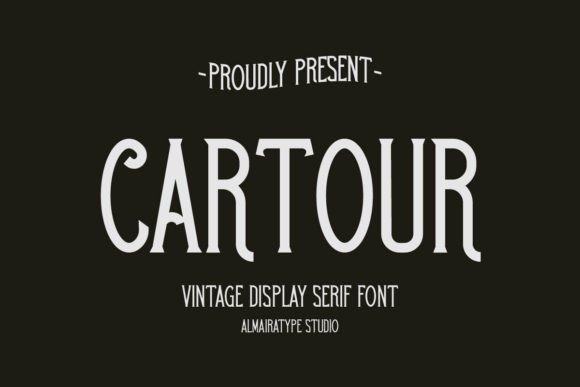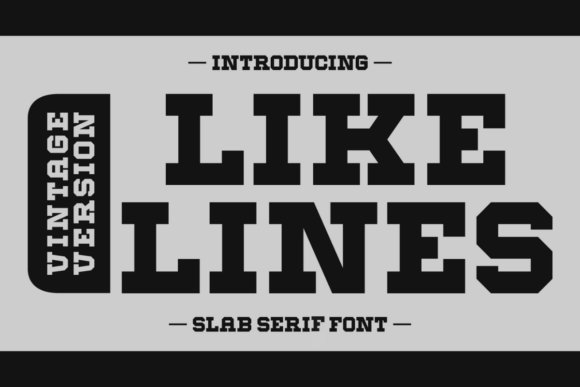
32 Timeless Vintage Serif Fonts That Add Warmth to Editorial Design in 2026
Vintage Serif Fonts bring back the character of hand-set type and aged printing without feeling dated. This collection of 32 faces spans book serifs, slab-influenced classics, and weathered display styles to suit editorial spreads, boutique labels, and heritage websites.
I outline where each style excels, pairing ideas, and quick tips for weight, kerning, and ornamented capitals so you can keep clarity while adding period charm. Short specimens and download pointers follow to help you test options on real layouts.
1. Woodsman Script
Woodsman Script
Woodsman Script channels the warmth of vintage serif lettering into a hand-drawn, rustic script with subtle distressing. Its slightly worn terminals and ink-bleed textures give letterforms an organic, tactile presence that reads well on labels and stamped logos. This personality makes it a natural for outdoor brands, farmhouse packaging, and any mark that needs a handcrafted, heritage feel.
Technically the font includes alternate characters, discretionary ligatures, and generous kerning that keep longer lines readable while preserving a rough-hewn aesthetic; pairing it with a clean sans or a restrained old-style serif balances visual weight. Use it at display sizes where its textured counters and decorative tails can sing; it also complements projects rooted in retro type, Vintage Serif Fonts, and classic woodtype motifs. For print and high-resolution digital mockups the distress holds up; for tiny UI labels consider using a slightly heavier weight or a smoothed variant.
My Recommendation: I reach for Woodsman Script when a project needs an honest, handmade voice-think craft beer labels, woodshop logos, or farmer’s-market packaging. Its distressed edges and alternates let me create marks that feel aged without looking sloppy, and the OpenType features give flexibility for display treatments. I would avoid tiny UI text but it’s excellent for large-format print and tactile branding.
2. Cartour Font
Cartour Font
Cartour is a poised serif with measured contrast and refined terminals that favor headlines and identity work. Its balanced proportions and clear axis lend authority to corporate marks and editorial headlines while maintaining an approachable character. The family includes small caps, multiple figure styles, and stylistic alternates that broaden typographic expression across posters and logotypes.
On the page Cartour reads with calm clarity, its stroke modulation offering enough personality to feel classic without becoming ornate; optical sizes mean it adapts neatly between print and large-format use. Use bolder cuts for mastheads and lighter weights for refined stationery; pairing it with a neutral grotesque produces a modern-but-traditional voice. It performs particularly well in magazine spreads, film title treatments, and upscale apparel branding where restraint matters.
My Recommendation: I choose Cartour when a brand must appear confident and refined-perfect for editorial mastheads, corporate identity, or cinematic titles. Its modest contrast and small caps let me build a typographic system that feels established without being old-fashioned. The alternates give just enough variety to keep repeated use interesting.
3. Like Lines Vintage Font
Like Lines Vintage Font
Like Lines Vintage is a slab serif collection built around bold, blocky letterforms and sporty accents that cue Americana and athletic design. Its squared serifs and rounded counters create a rhythmic, punchy presence that reads well on jerseys, posters, and packaging needing bold display typography. Alternate glyphs and accent characters let designers push the voice from retro advertising into contemporary brand work.
The family ships with italic options and multilingual support, and spacing tuned for short, impactful headlines so text remains tight and energetic. For editorial spreads or apparel labels pair it with a soft script or a narrow sans to temper its mass; on signage it reads instantly from a distance. Use heavier weights for titles and thinner cuts for subheadings to build a clear visual hierarchy and strong identity.
My Recommendation: I reach for Like Lines Vintage when a project needs loud, dependable typography-team apparel, retro posters, or product packaging with attitude. The slab forms and sports-inspired alternates give headlines immediate presence while italics and language support widen its usability. It’s my go-to for work that benefits from bold nostalgia without feeling kitschy.
4. Kingred Font
Kingred Font
Kingred is a handmade display serif that channels western sign painting and soft, romantic letterforms; its slightly rough terminals and warm stroke contrast give it a tactile, retro character and place it squarely among strong Vintage Serif Fonts for expressive headers. The letterforms show tiny irregularities that read as crafted rather than mechanical, and subtle alternates add charm without overwhelming readability.
Pair a carefully chosen Vintage Serif Font with a neutral sans to keep body copy legible while retaining headline personality. Small caps, subtle textures, or slightly tightened tracking will increase that historic feel without sacrificing readability.
With these 32 selections you have a broad range of old-style and display serifs for print and web projects. Try a few on mockups to see which voice best matches your concept and audience.